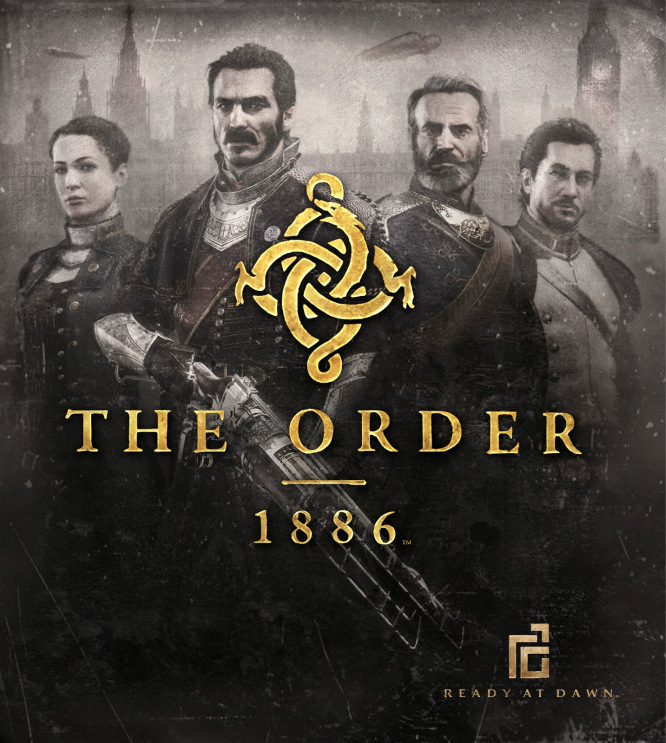
The Order 1886 Font
ActionThe Order: 1886 is a third-person action-adventure game developed by Ready at Dawn and published by Sony Computer Entertainment. It is set in an alternate history version of London in the year 1886, where a group of knights known as the Order of the Round Table are fighting against a rebellion led by werewolves and other mythical creatures.
The font used for The Order: 1886 game title in the box art is likely Adobe Jenson Bold. Jenson is an old-style serif typeface created by designer Robert Slimbach for Adobe Systems. Jenson's Roman designs were inspired by a text face that Nicolas Jenson cut in Venice around 1470.